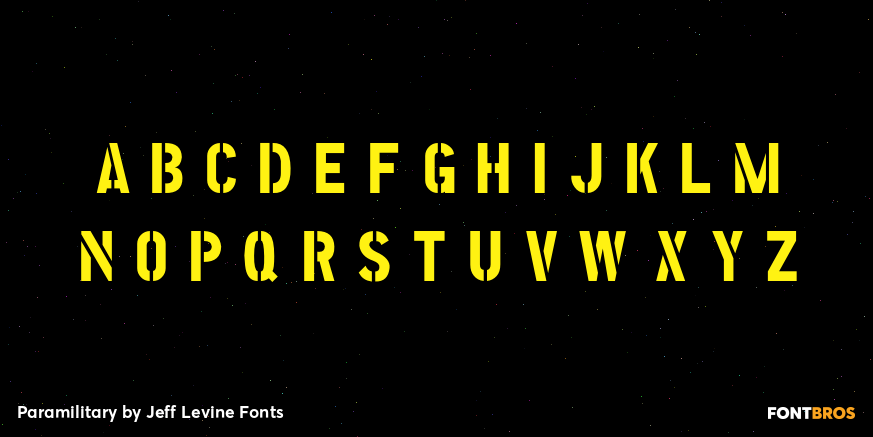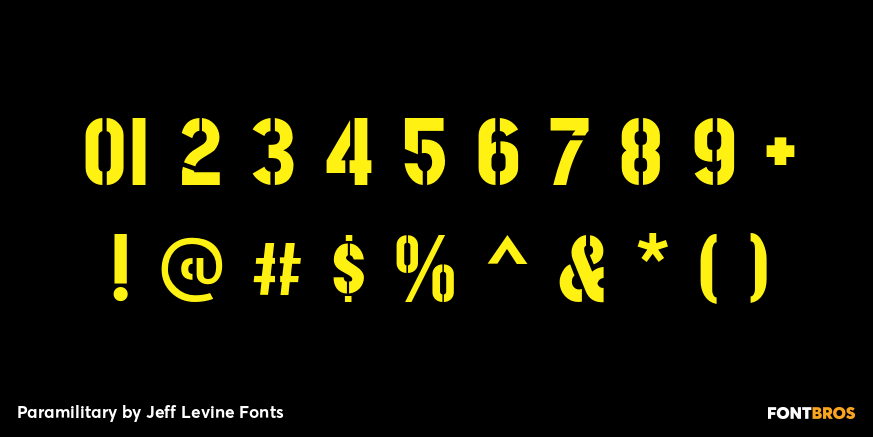
Paramilitary
Paramilitary JNL from Jeff Levine was modeled after a set of brass interlocking stencils and offers another choice in digital stencil typeface design.